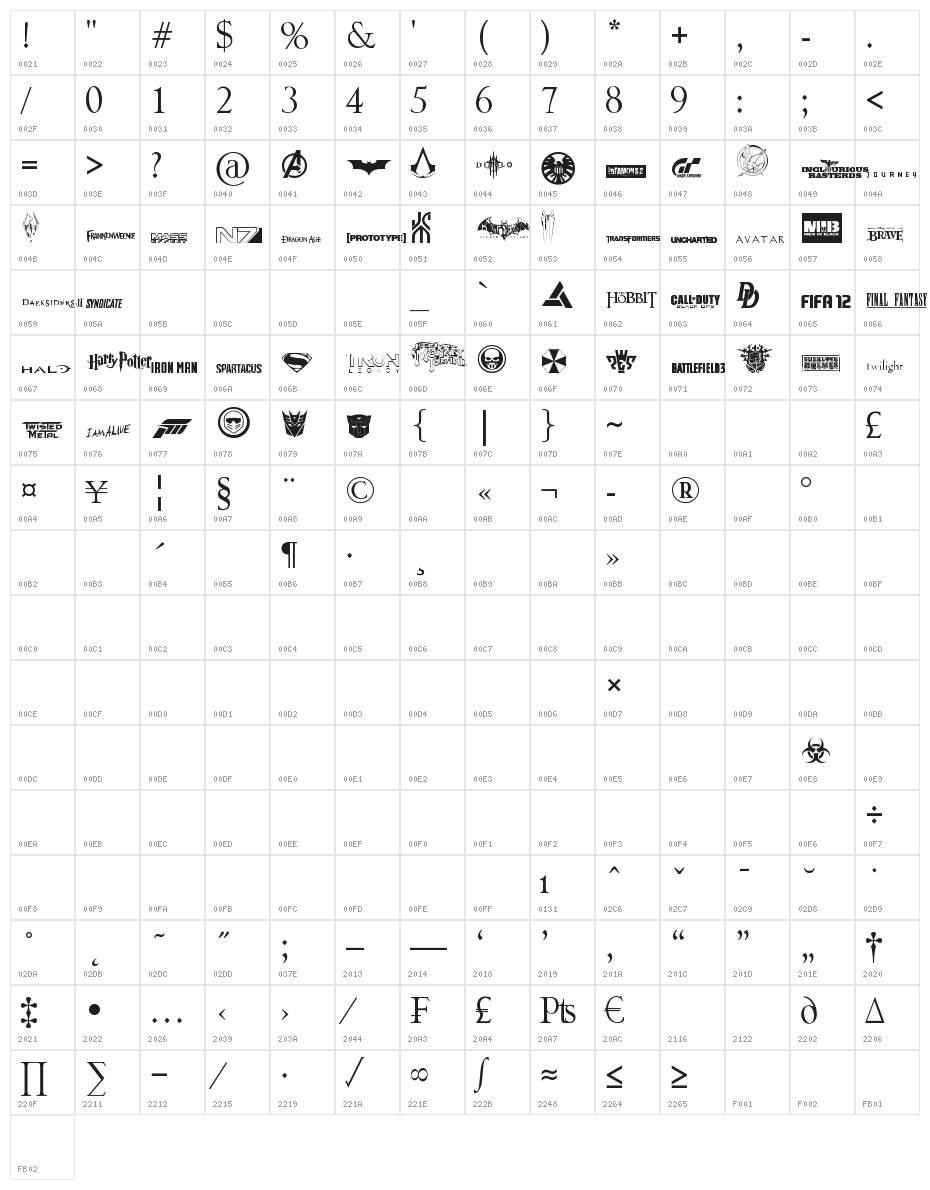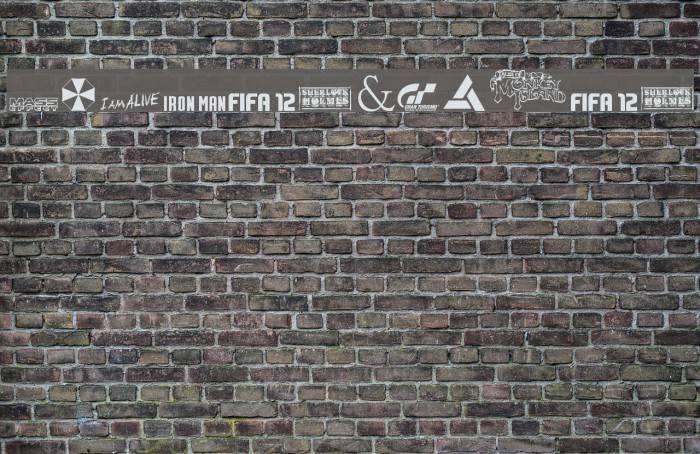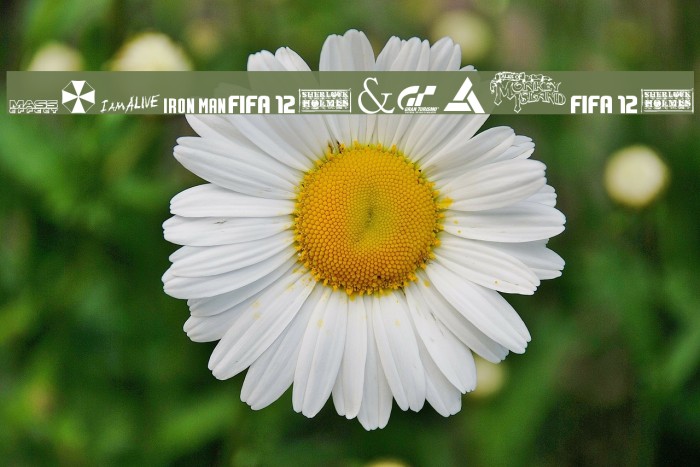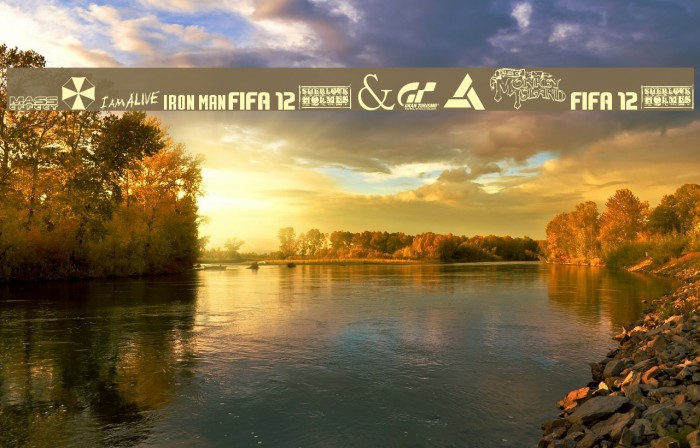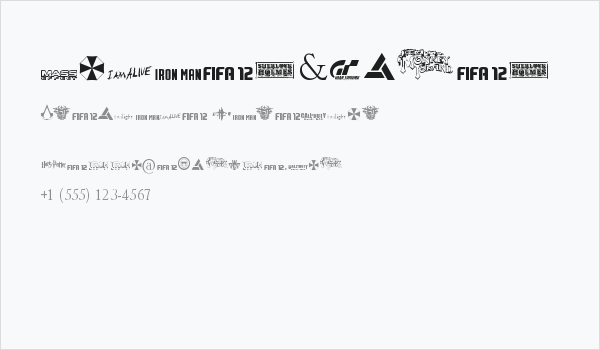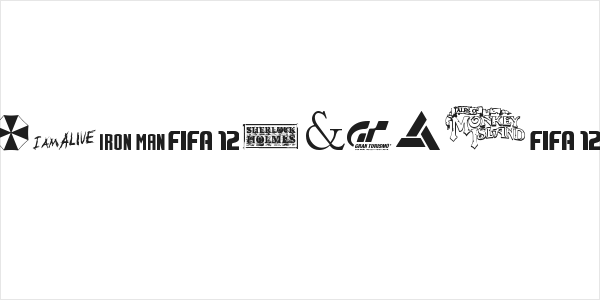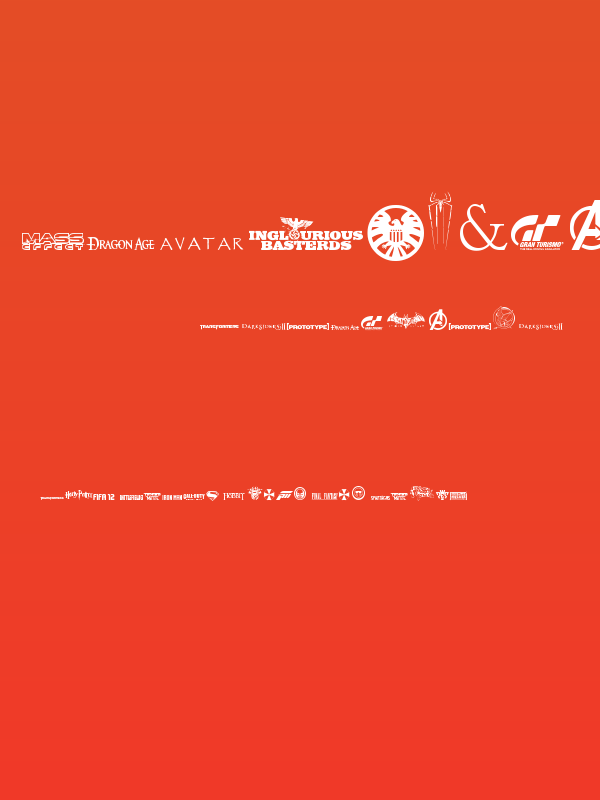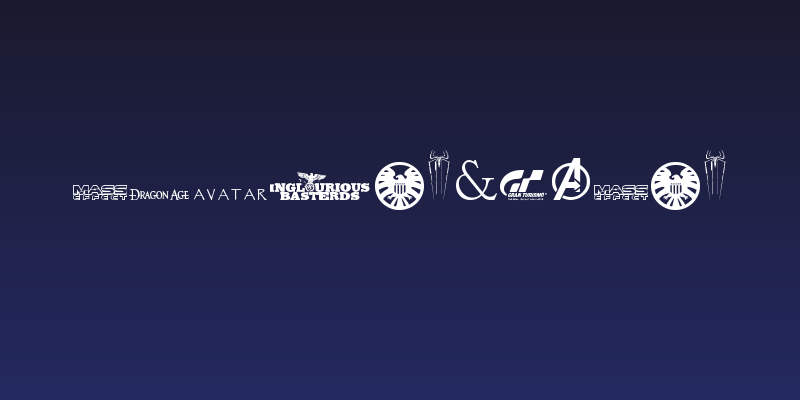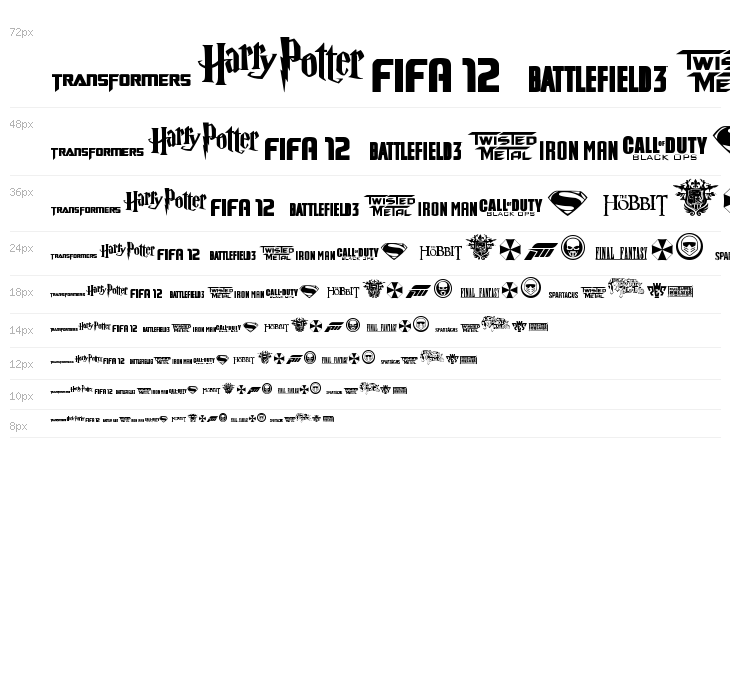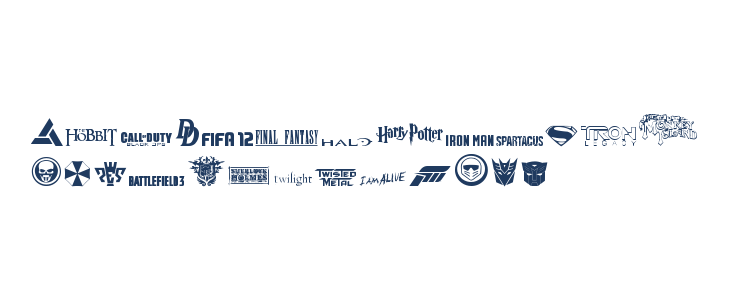
Movies&Games Font
Movies&Games Description
This image showcases a collection of logos from various movies and games, each with its unique font style. The fonts range from bold and dramatic to sleek and modern, capturing the essence of each brand. The designs incorporate elements that reflect the themes and genres of the respective titles, such as action, fantasy, and adventure. The typography is diverse, with some logos featuring sharp, angular lines, while others have more rounded, flowing scripts. This variety highlights the creative use of typography in branding and design.
| Overall Style | Diverse, reflecting various genres and themes. |
| Use Case | Logos, Branding, Merchandise |
| Proposed Projects | Ideal for branding projects, fan art, themed events, or merchandise design related to movies and games. |